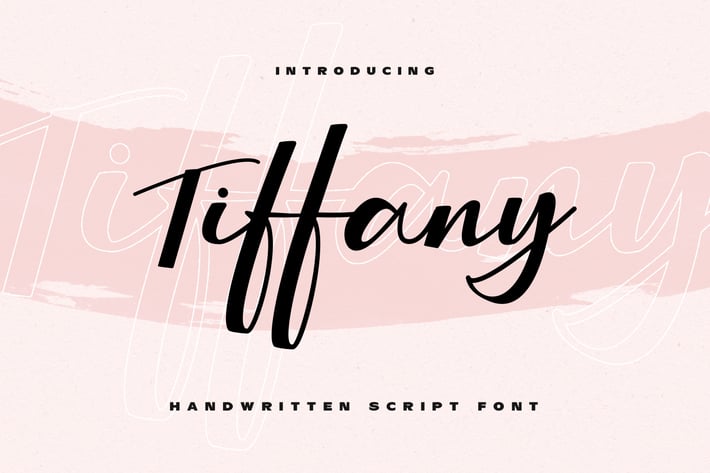
Tiffany - Handwritten Script Font
Tiffany is perfect to use for Logotype, Letterhead, Poster, Apparel Design, Label and etc.
The alternative characters were divided into several features such as Stylistic Alternates and Ligature.